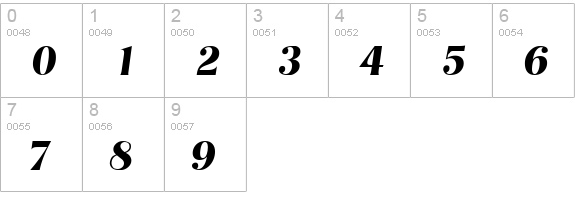
Tennessee SF Bold Italic is a strong, high-contrast, italic variant in the Tennessee typeface family \xE2\x80\x94 well suited to headlines, attention-grabbing titles, and strong calls-to-action.
Tennessee SF Bold Italic is a striking font that combines boldness and elegance in perfect harmony. Its strong and confident letterforms exude a sense of power and sophistication, making it the ideal choice for projects that require a touch of authority and style. With its bold weight and slanted italics, Tennessee SF Bold Italic adds a dynamic and contemporary flair to any design. Whether used in headlines, titles, or logos, this font effortlessly commands attention and leaves a lasting impression. One of the most remarkable features of Tennessee SF Bold Italic is its versatility. It seamlessly adapts to various design contexts, from corporate branding to editorial layouts, showcasing its adaptability and wide range of applications. What sets Tennessee SF Bold Italic apart is its availability as a free download at FontsMarket.com. This means that designers and enthusiasts alike can enjoy the benefits of this exceptional font without any cost. Now, everyone can tap into the power and elegance of Tennessee SF Bold Italic, creating stunning designs and captivating visuals that captivate and inspire. Download Tennessee SF Bold Italic today from FontsMarket.com and elevate your designs to new heights. Whether you're a professional designer or a creative hobbyist, this font will undoubtedly become a valuable asset in your typographic toolkit. Embrace the freedom of creativity and make a statement with Tennessee SF Bold Italic.